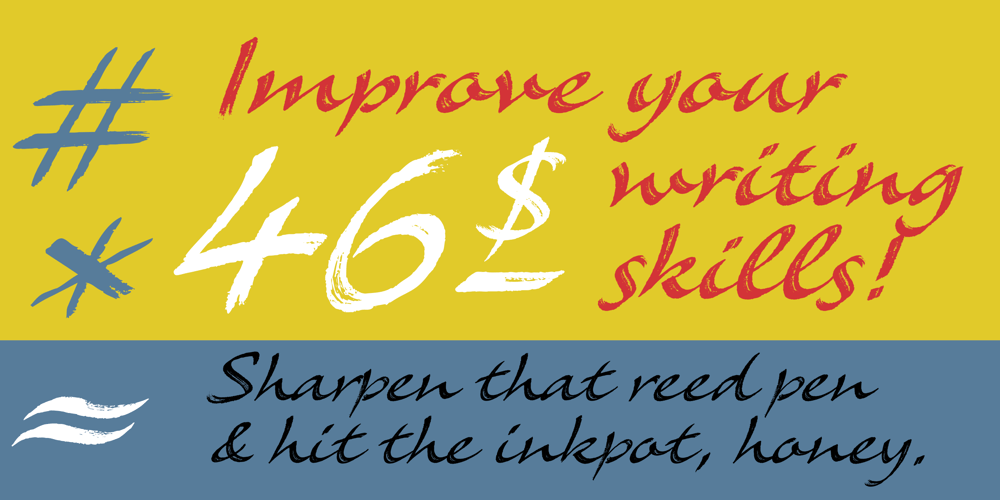
Meroe
Meroe font
Meroe Font Family was designed by Peter Becker and published by Linotype. Meroe contains 2 styles and family package options. Meroe from Peter Becker: a warm script with a very dynamic touchMeroe is a warm, calligraphic script with a very dynamic touch. The many little details of the rugged stroke direction show to advantage in large font sizes. Nonetheless, Meroe is also very readable in small sizes. The font feels at home everywhere, where a personal note is required, as for example, in invitations and greetings cards , but of course also in packaging design.